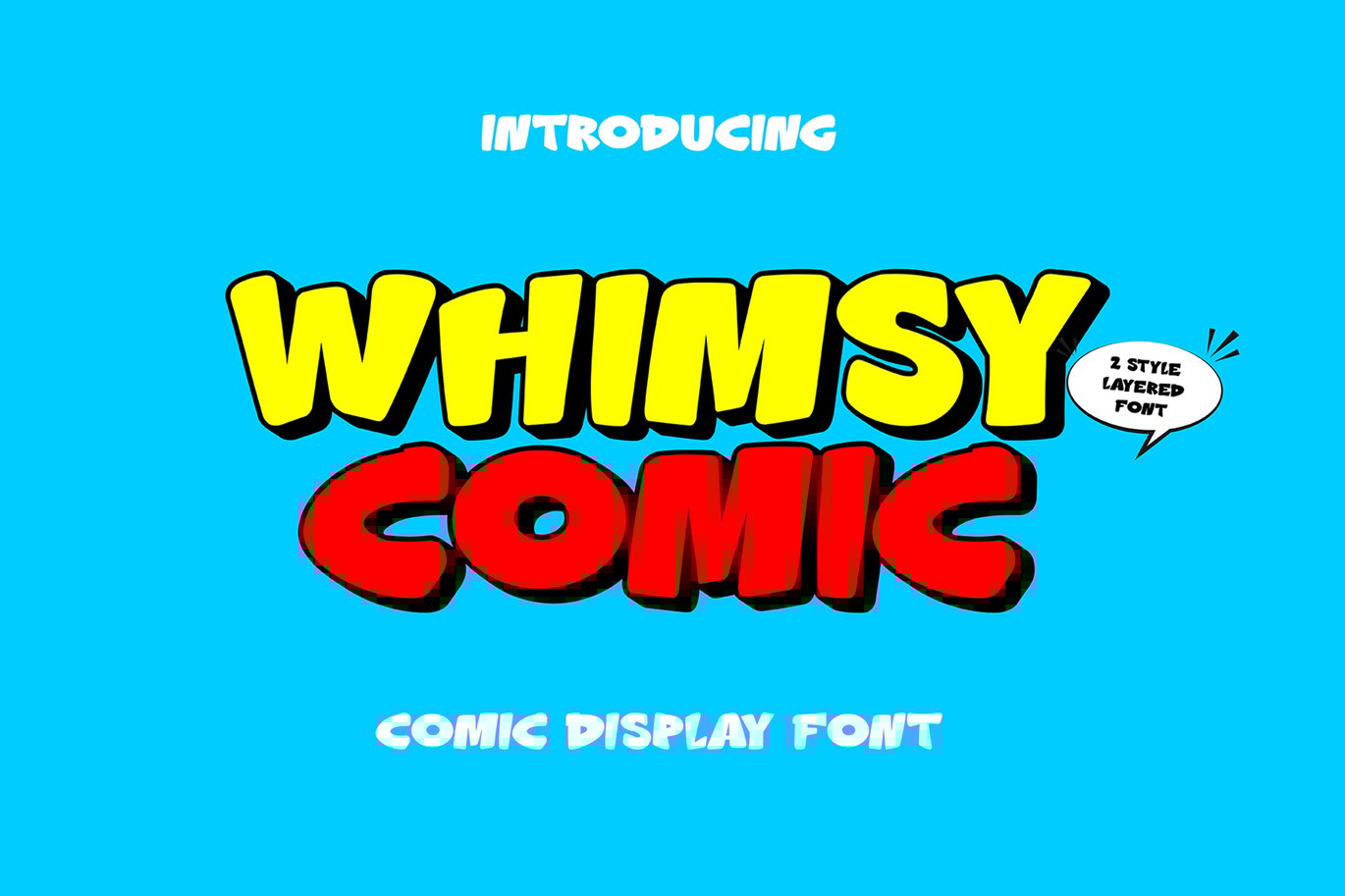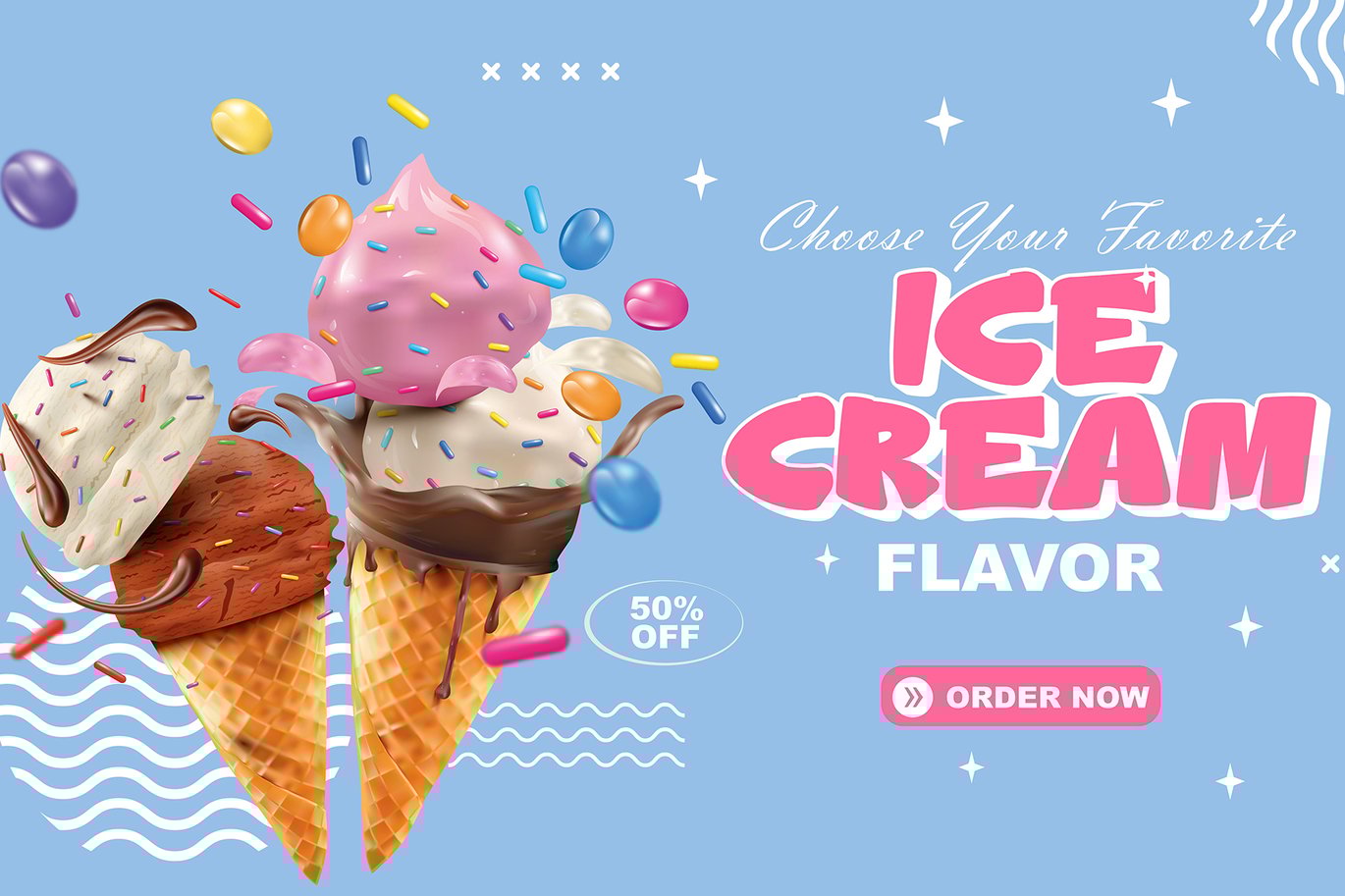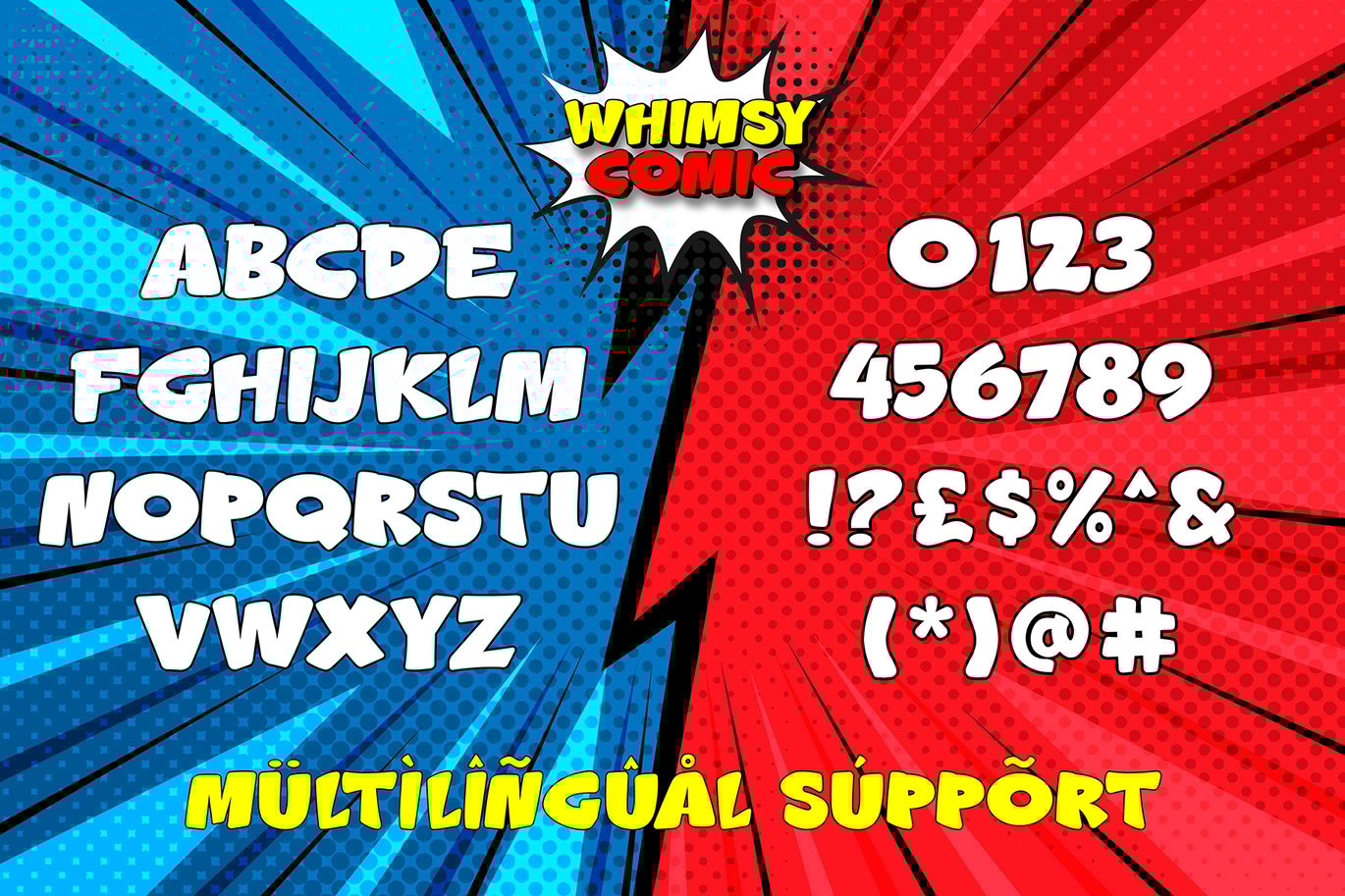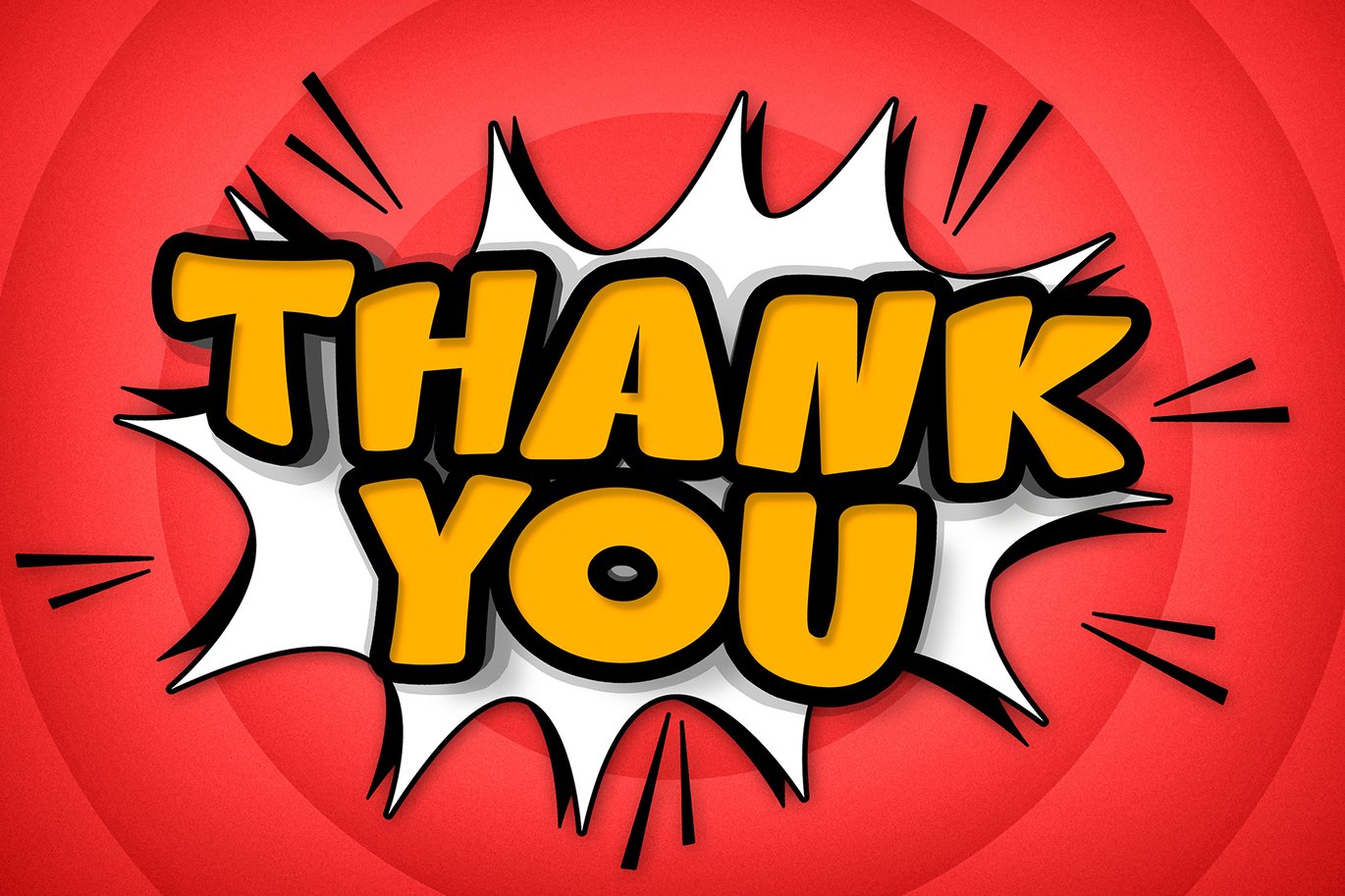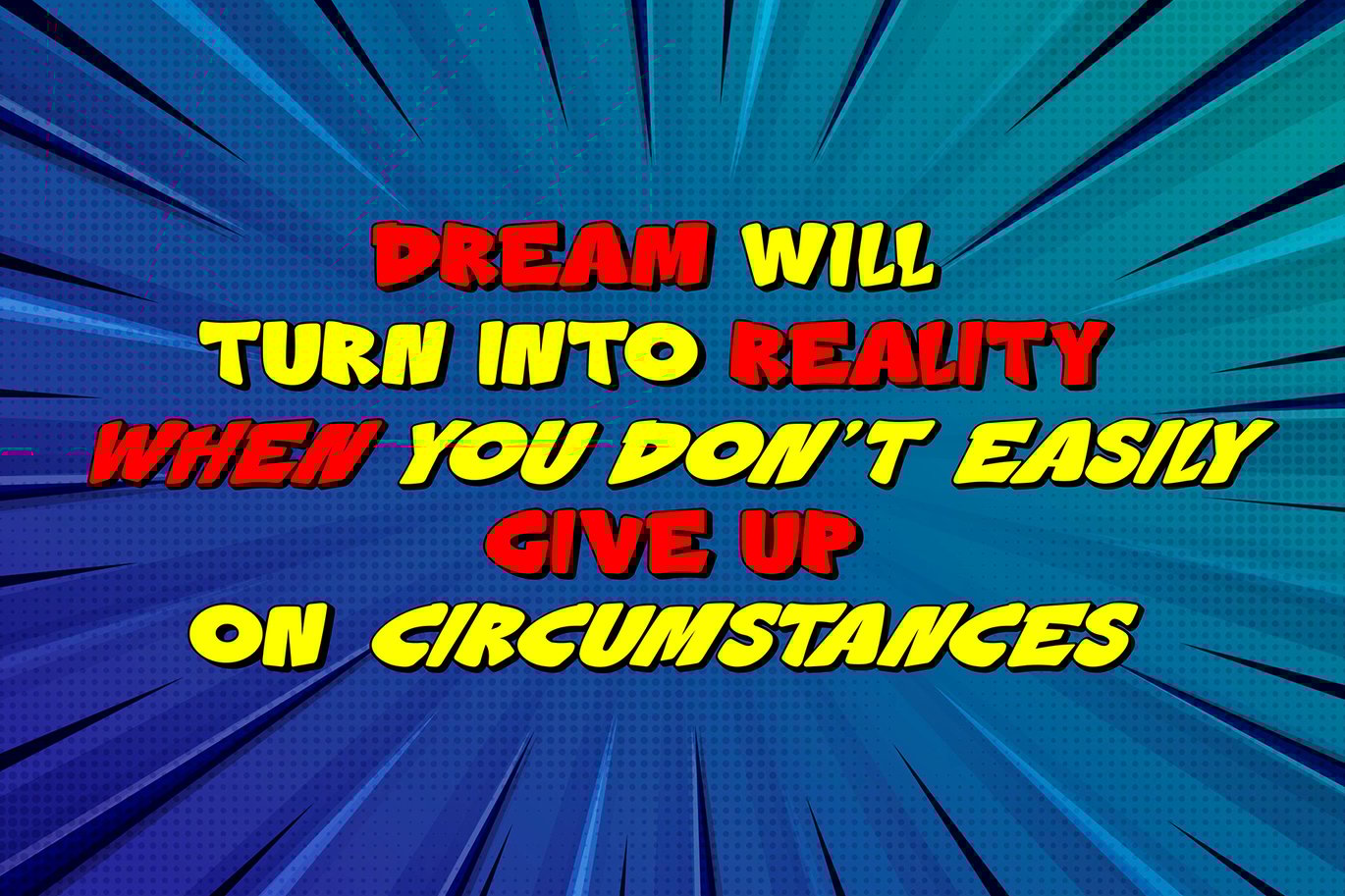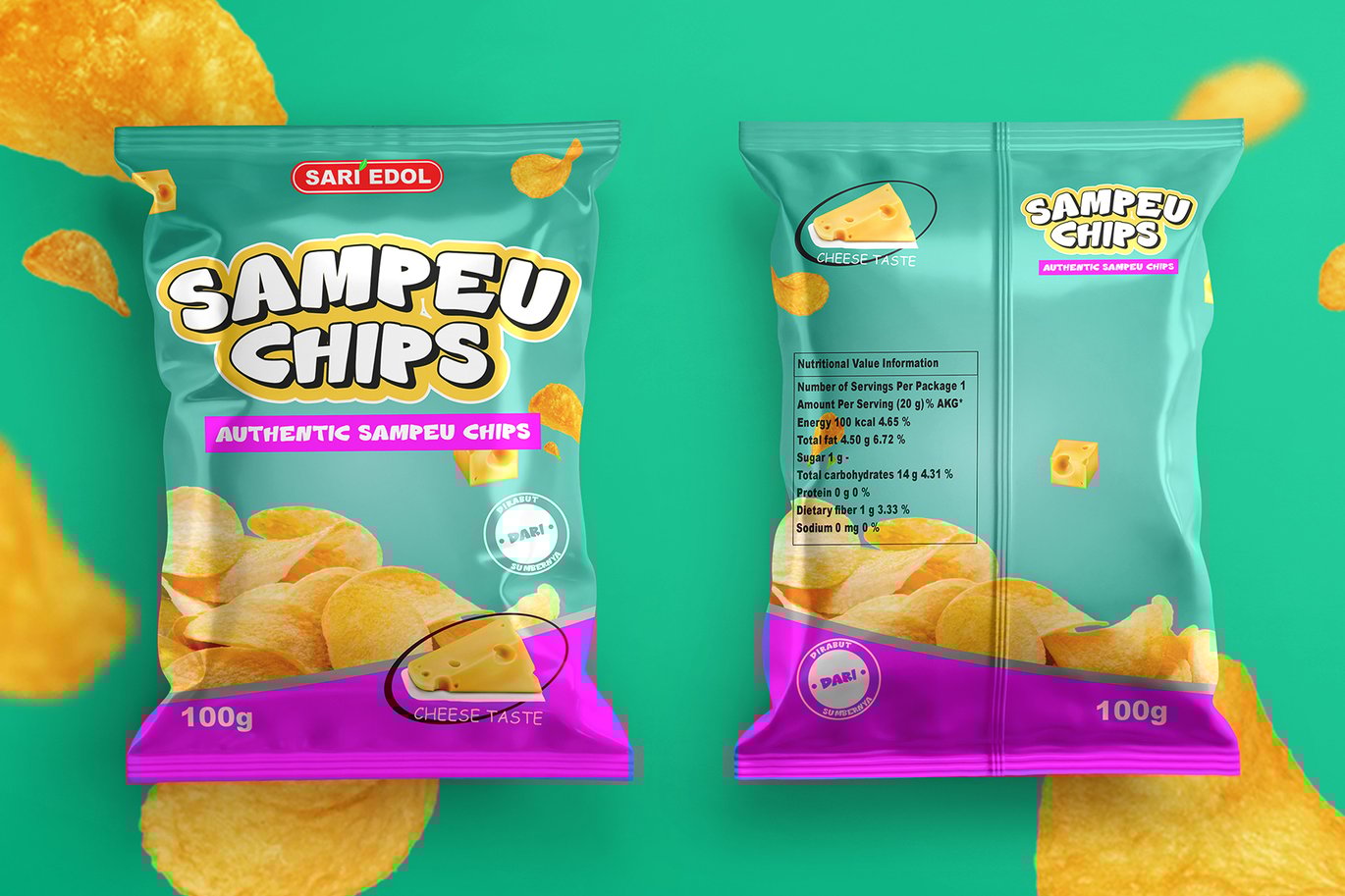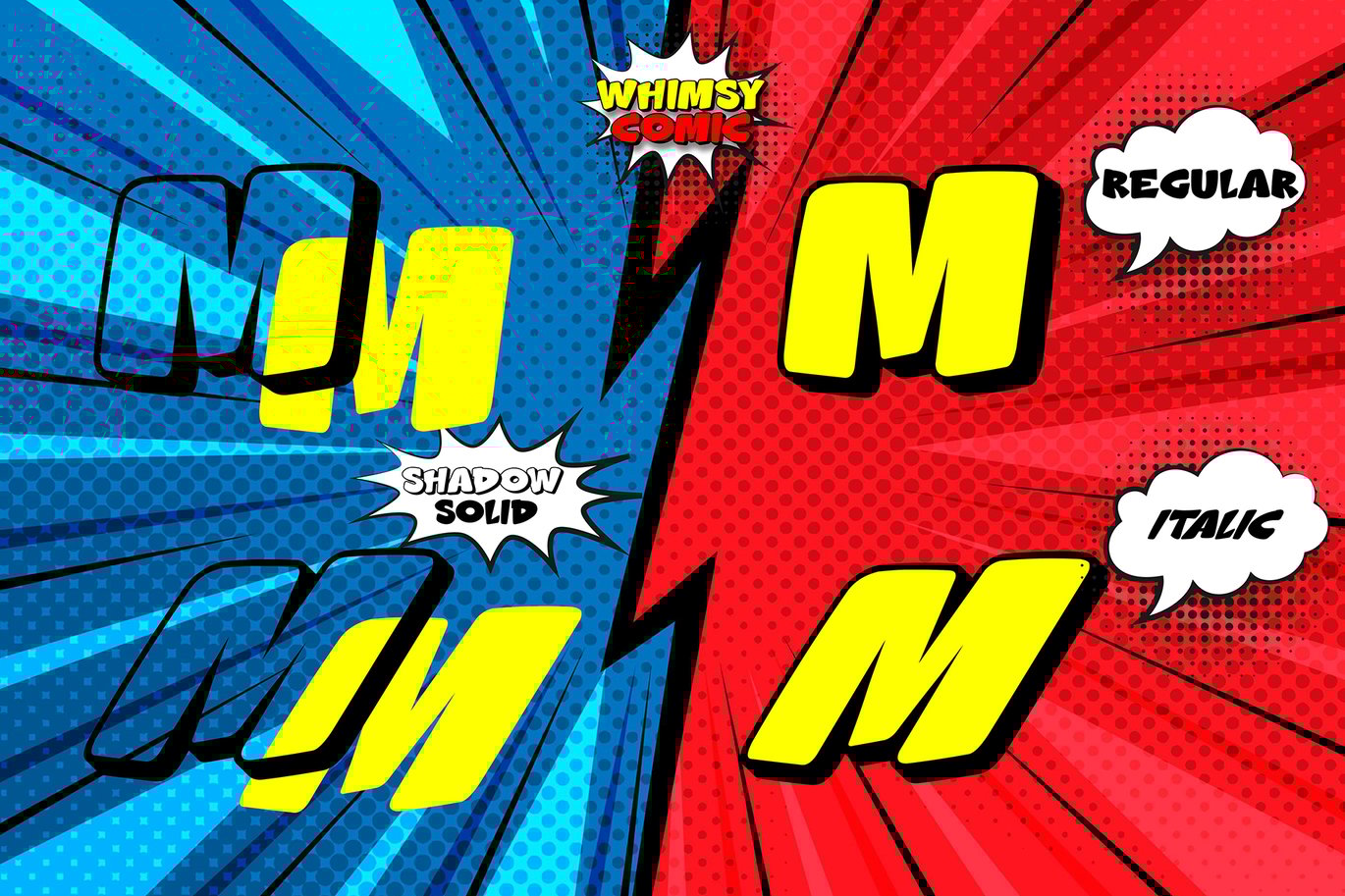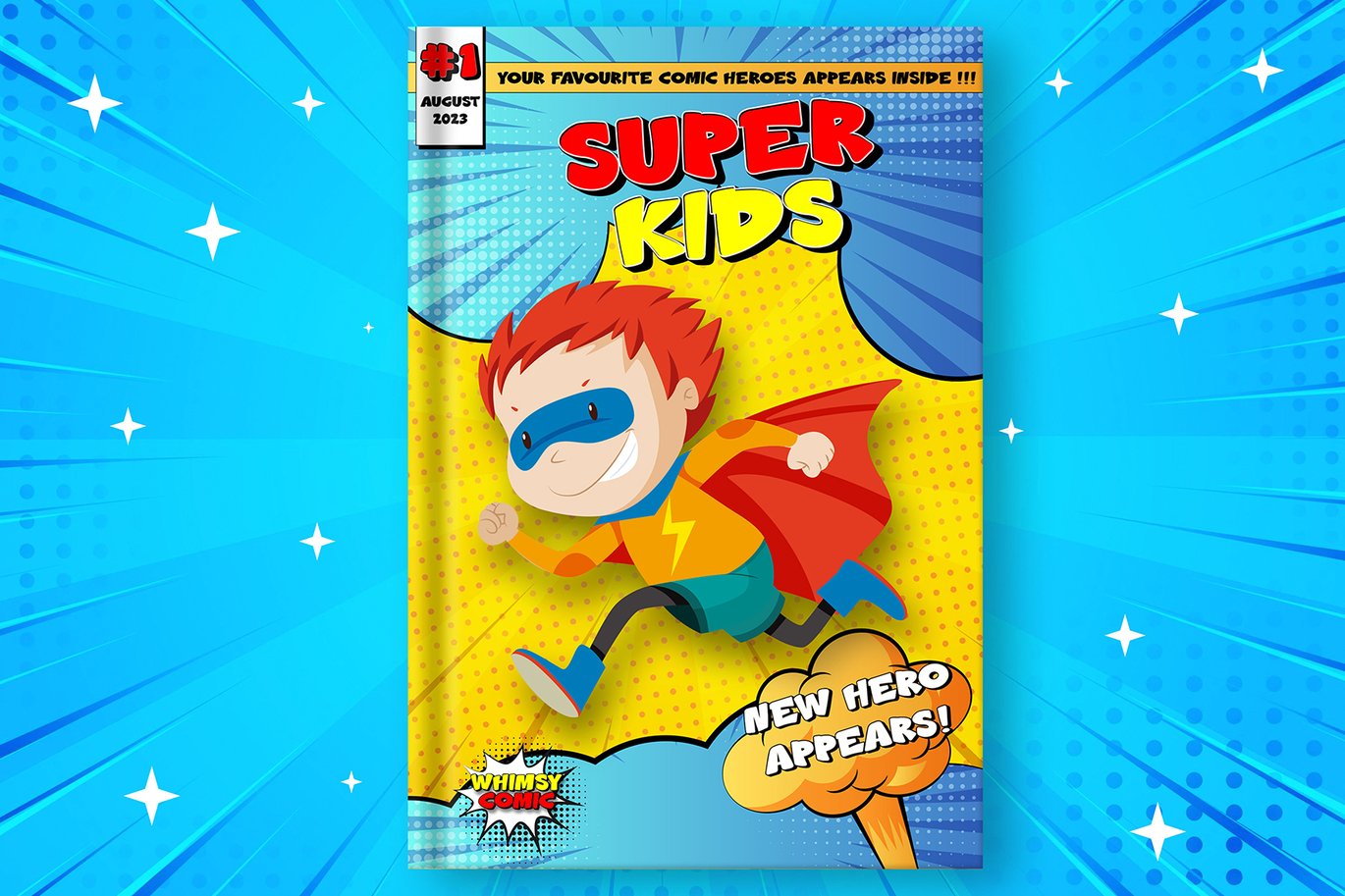
Whimsy Comic – Layered Display Font
Introducing Whimsy Comic Layered Display Font – where imagination meets typography! Elevate your designs to a new level of playfulness with this multi-layered font. Dive into a world where letters come alive, each layer adding depth and character to your text. Perfect for comics, children’s books, branding, and more, Whimsy Comic injects a burst of joy into every project. Let your creativity run wild as you mix and match layers, creating a visual story that’s as delightful as it is captivating. Unleash the magic of Whimsy Comic and let your words dance off the page!
- Character Set A-Z (All-caps)
- Accents (Multilingual characters)